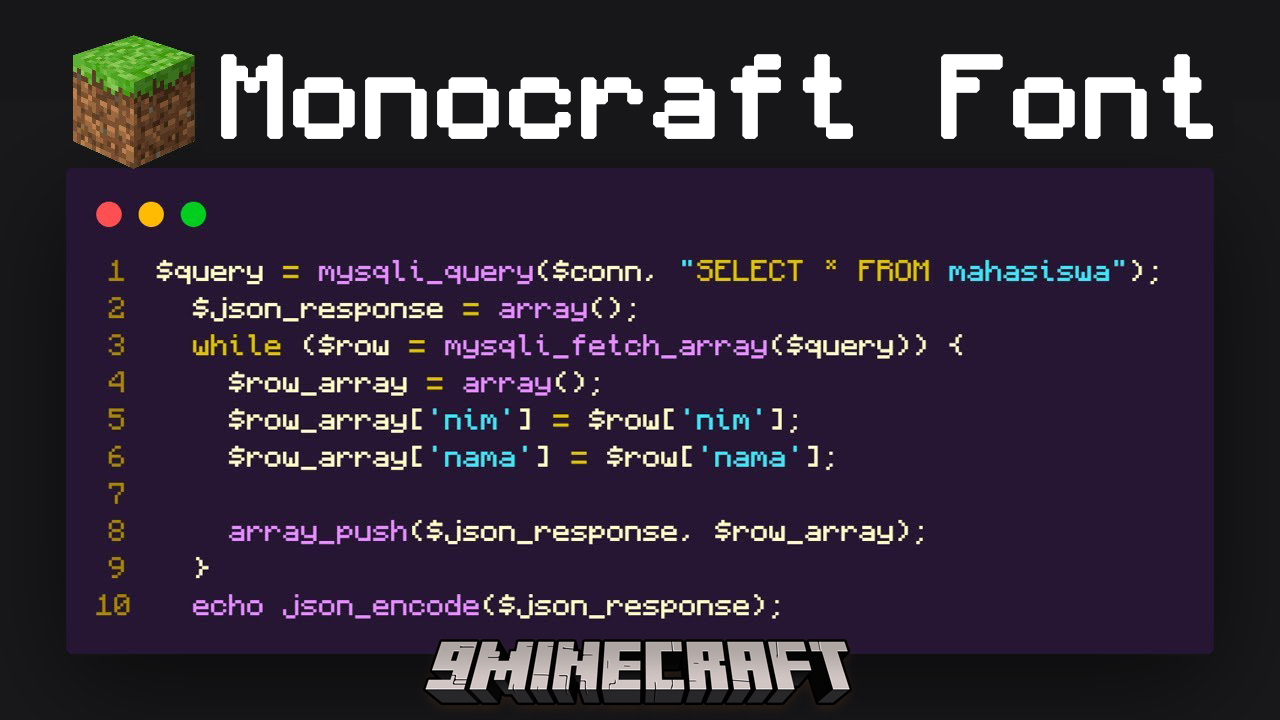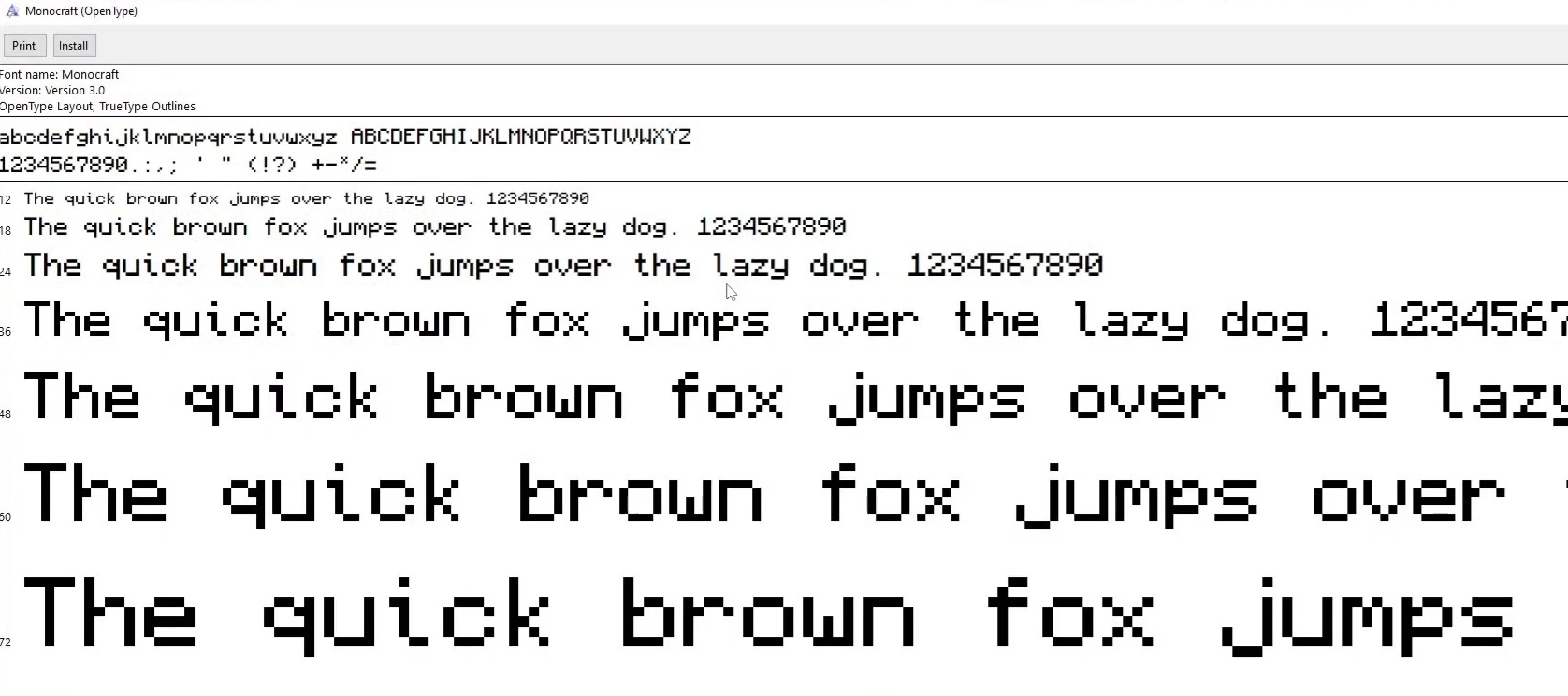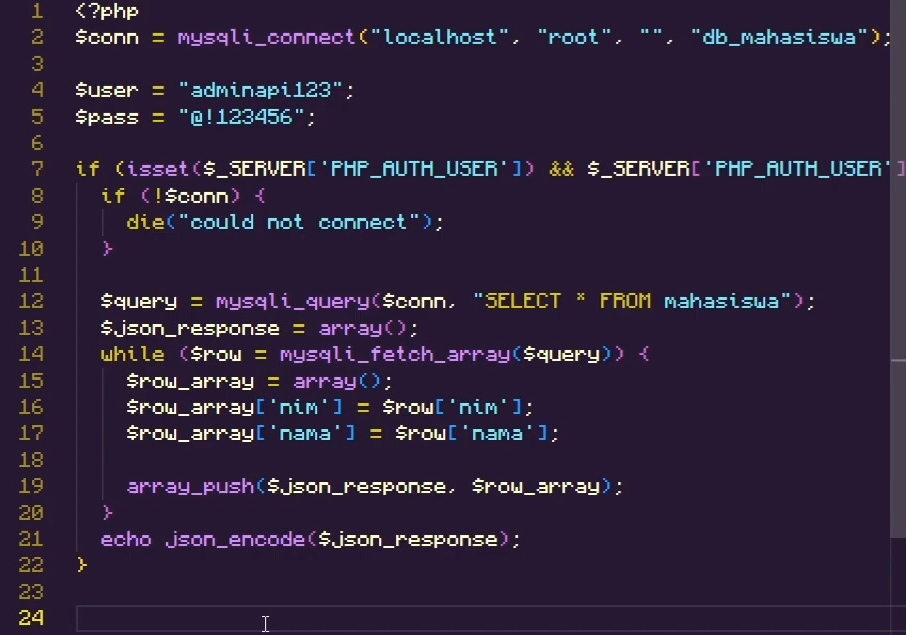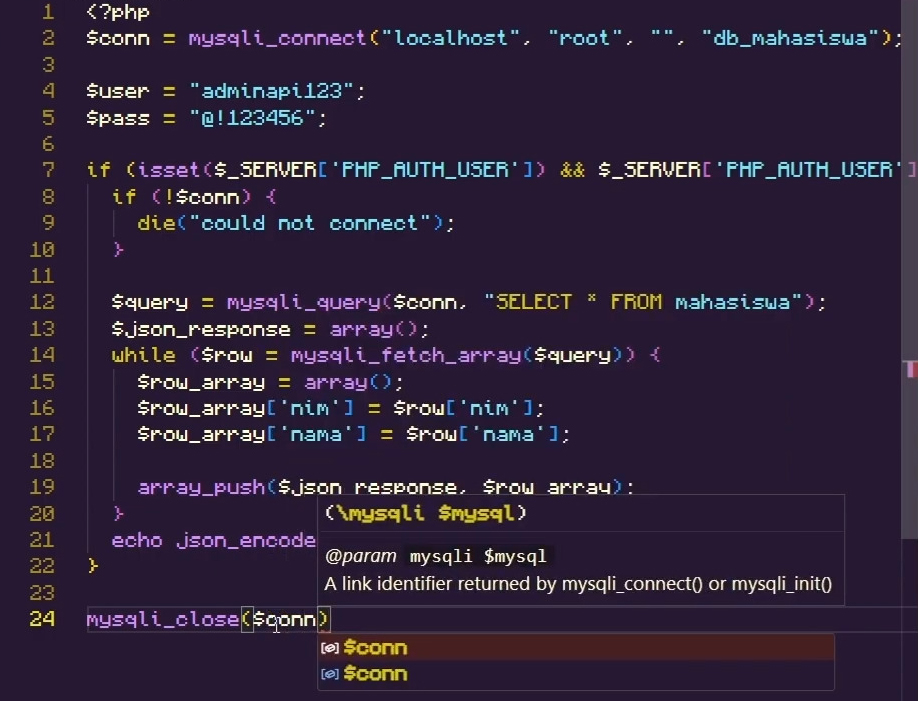
Monocraft Font – Minecraft Font, Optimized in a Monospaced Style
Monocraft Font is a typeface designed based on Minecraft’s default font and optimized in a monospaced style (each character occupies the same amount of space). This font was created specifically for programmers and Minecraft server administrators, featuring ligatures to support coding or editing complex text, making it more readable compared to other programming fonts.
Features:
- Minecraft
- The characters in this font were based around the typeface used in the Minecraft UI, with each glyph updated for better readability and spacing
- Monospaced
- Each of the 1500+ glyphs included in this font have been carefully redesigned to work in a monospaced font
- Thin characters like “i” and “l” have been reworked with tasteful tails and serifs to look better in a monospaced environment
- Programming ligatures
- Add some spice to your programming life with all new ligature characters
- Arrows now look like arrows and comparison operators are easier to see at a glance